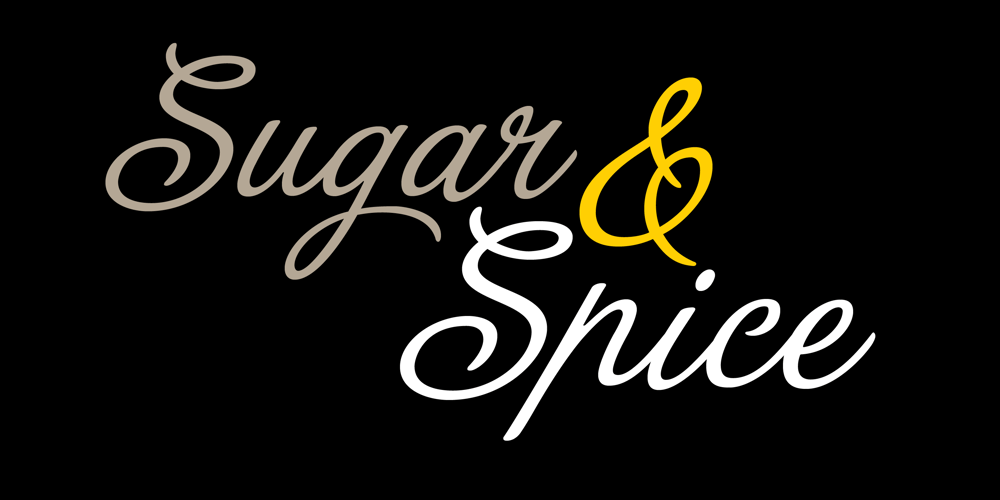
La Portenia Font Family was designed by Alejandro Paul, Diego Giaccone, Angel Koziupa and published by Sudtipos. La Portenia contains 2 styles and family package options. La Portenia pays homage to the spirit of early 20th-century show card writers and type designers. This face has two variations: La Portenia de Recoleta is slightly more formal and polite, while La Portenia de la Boca has longer, more extravagant flourishes and indulges in more interletter space. This showier variant is reminiscent of signs found in Buenos Aires. Both have been designed by Diego Giaccone and Angel Koziupa, and engineered and expanded by Alejandro Paul.